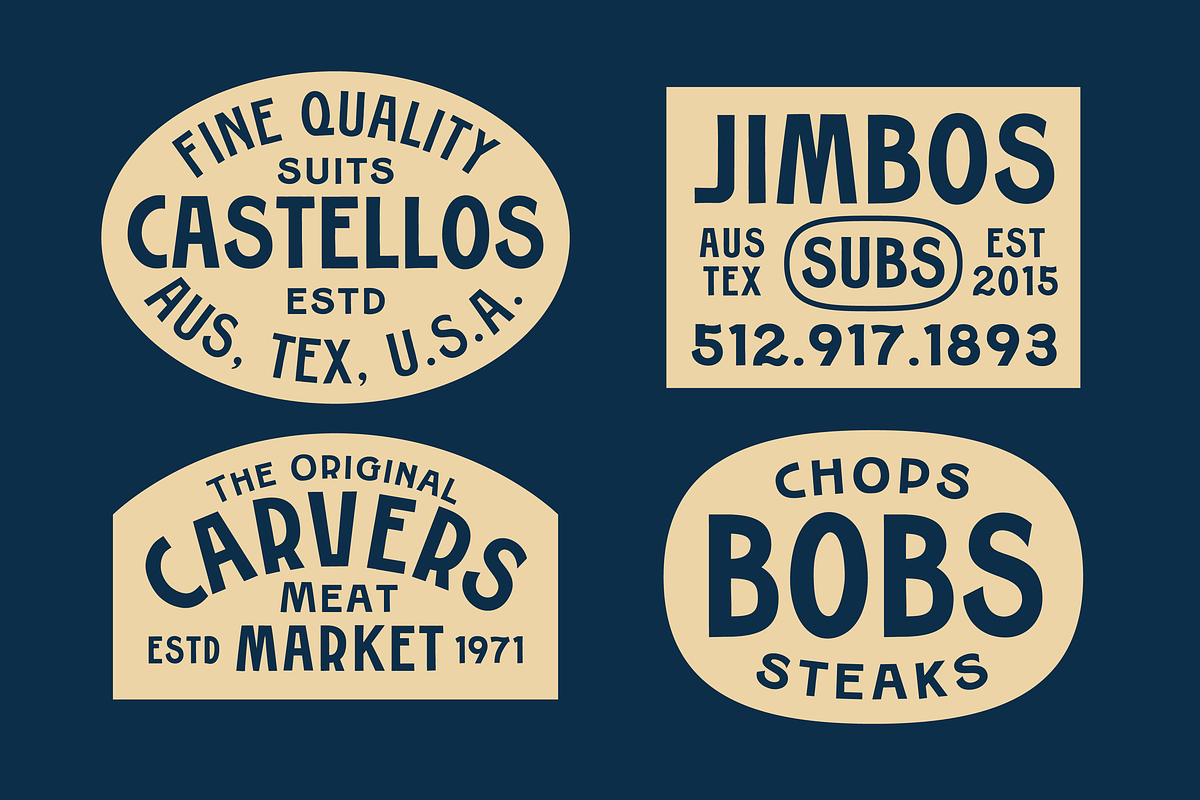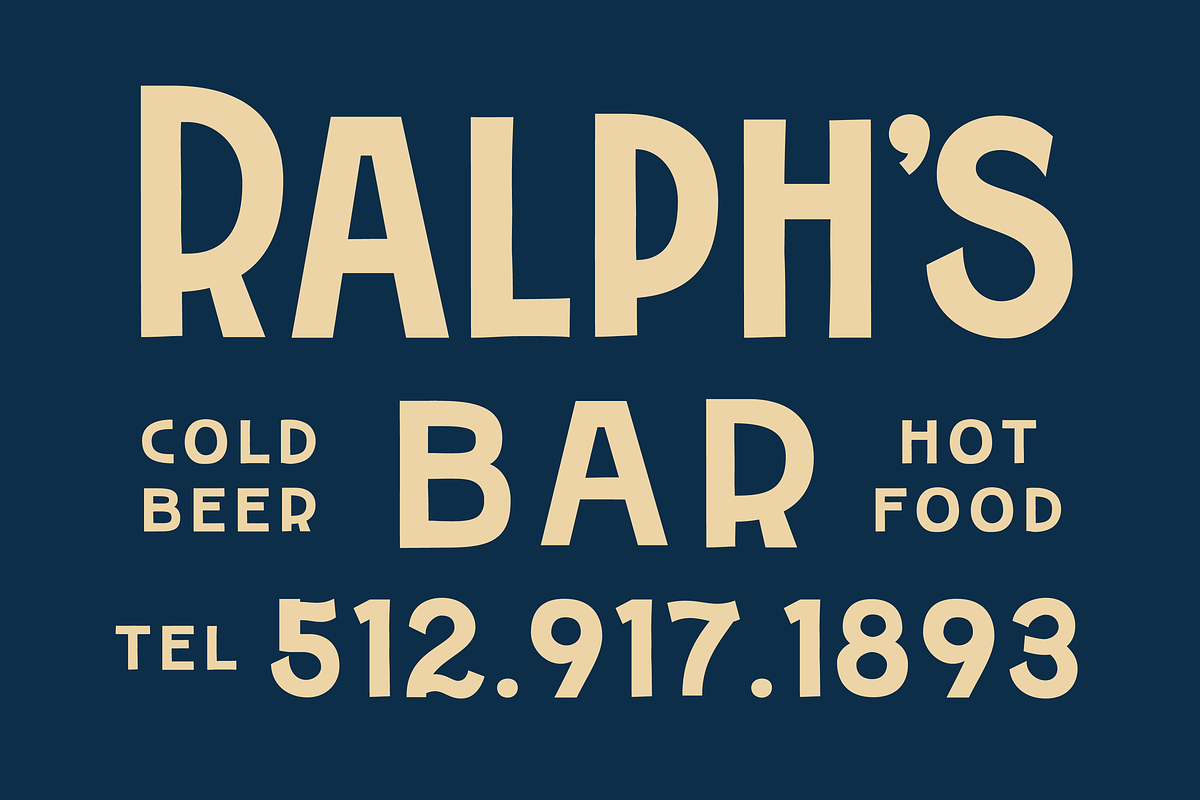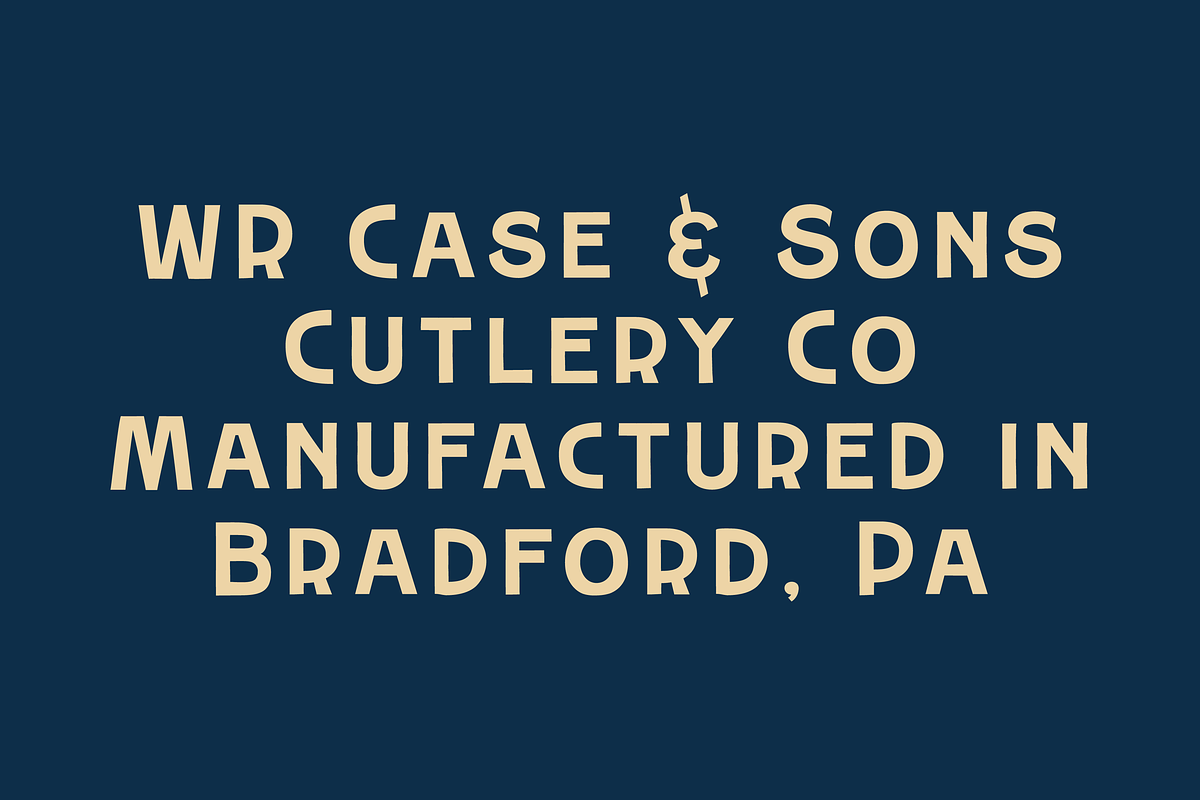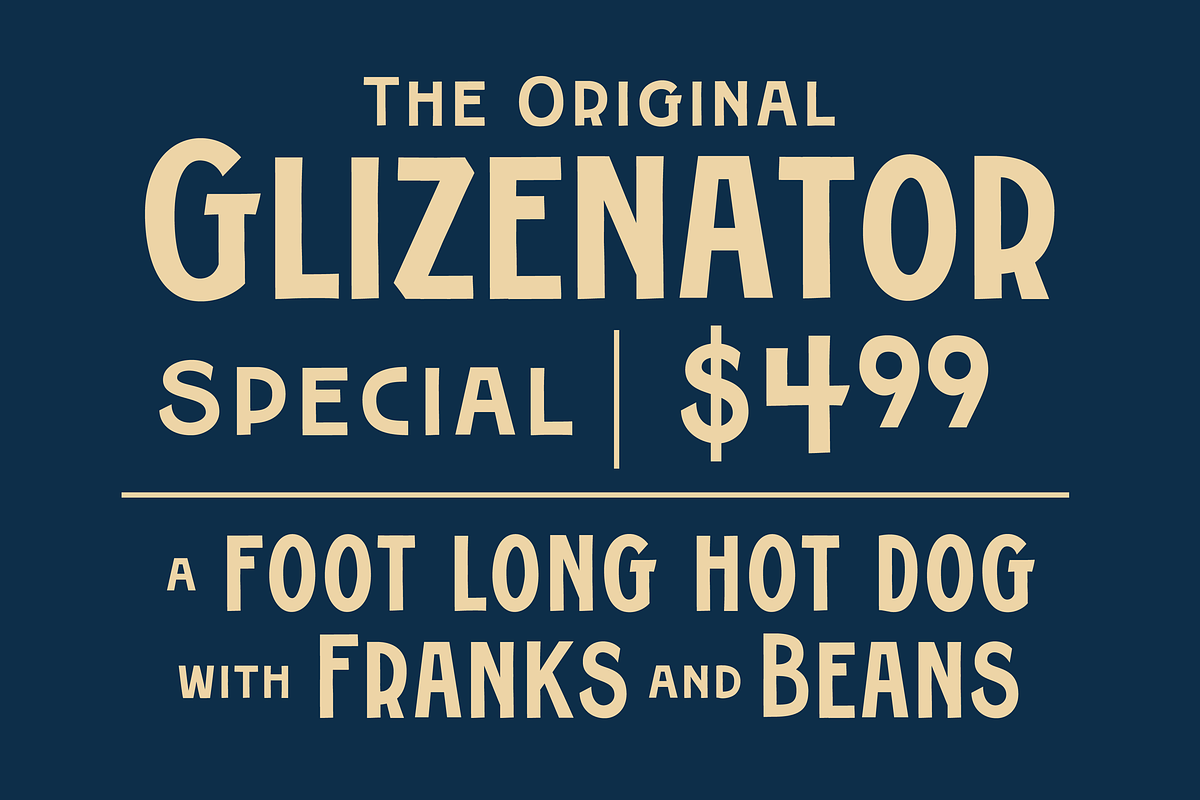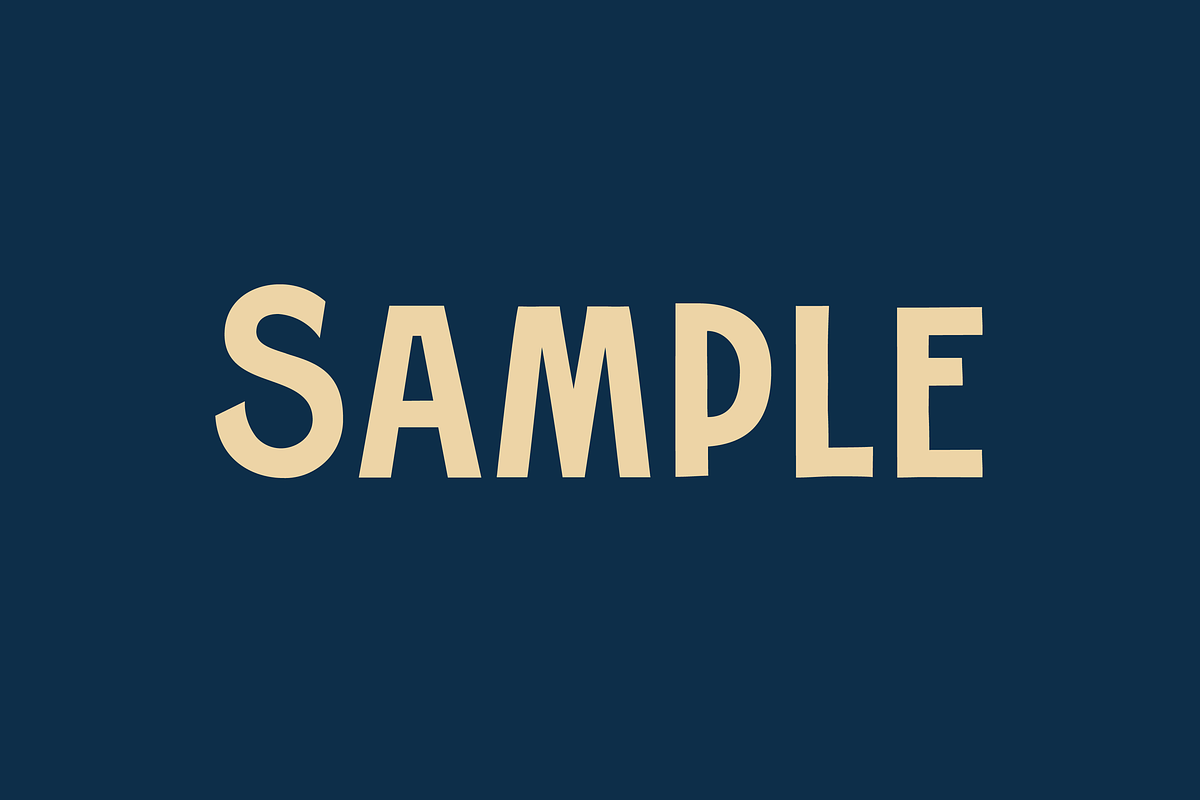
SAMPLE SANS
SAMPLE SANS is a bold display typeface inspired by mid-century sign painting. With subtle imperfections that echo the touch of a painter’s hand, it brings warmth and character to any design. This all-caps font comes in both regular and wide styles, offering flexibility while maintaining its handcrafted charm.